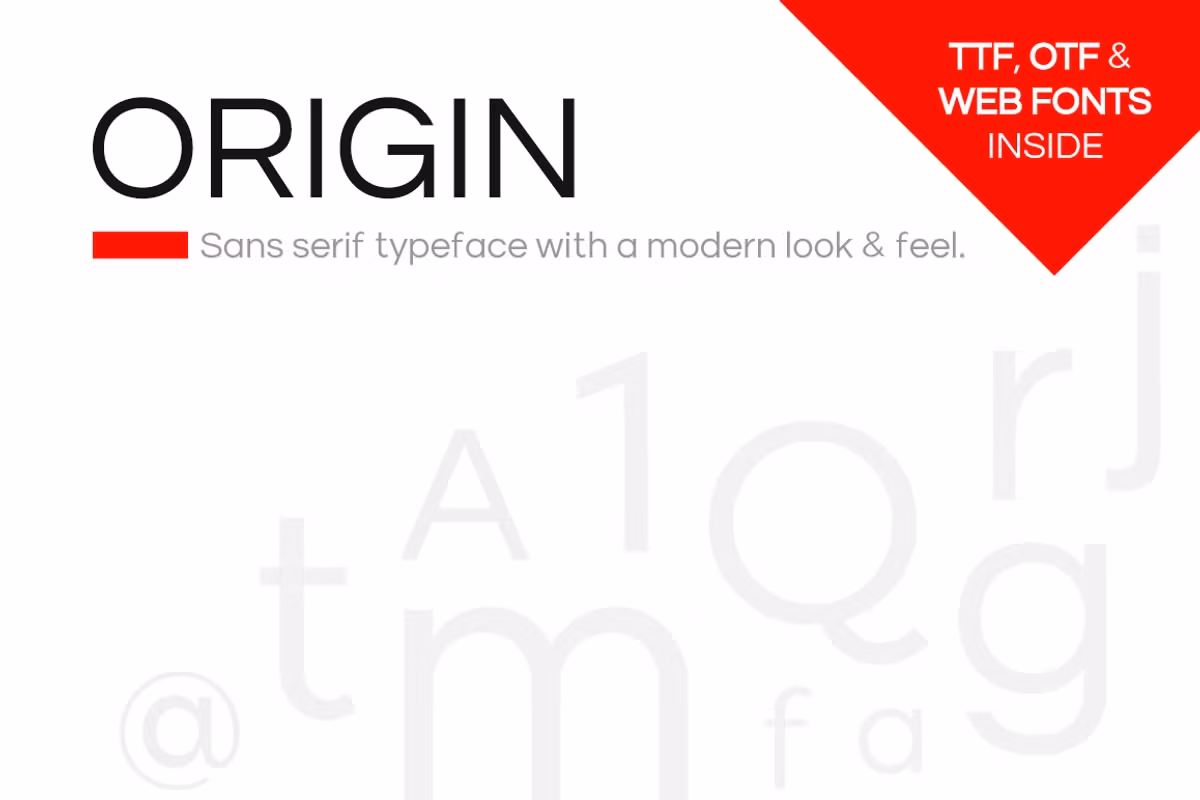
ORIGIN - Modern Typeface + Web Fonts Free Download is a contemporary sans-serif typeface inspired by Swiss design principles, emphasizing minimalism and elegance. Ideal for headlines, body text, and various design projects, ORIGIN offers a clean and modern aesthetic that enhances readability and visual appeal.
Designed by Designova, ORIGIN - Modern Typeface + Web Fonts Free Download includes four weights: Light, Regular, Bold, and Heavy. The package provides OTF, TTF, and web font formats (EOT, SVG, TTF, WOFF), ensuring compatibility across different platforms and applications.